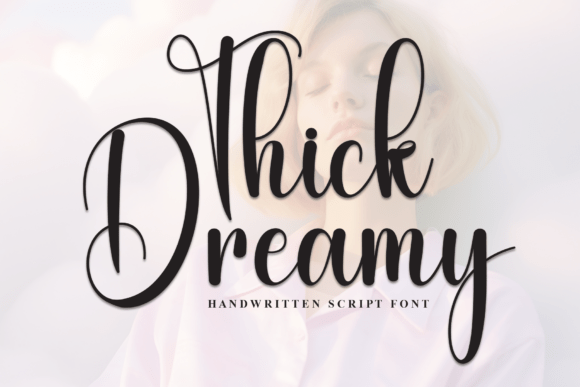
Thick Dreamy Font: Elevate Your Designs with Artistic Flair and Contemporary Elegance
In the world of typography, few fonts manage to strike a balance between artistic expression and modern sophistication. Thick Dreamy, a stylish script font, is one such exceptional find. With its fluid brush strokes, dynamic curves, and expressive letterforms, Thick Dreamy captures the essence of hand-painted calligraphy with a contemporary twist. This versatile font is ideal for a wide range of design applications, including logos, invitations, packaging, and social media graphics.
The Artistic Appeal of Thick Dreamy
Thick Dreamy is more than just a font; it’s an artistic statement. Its fluid brush strokes and dynamic curves give it a natural, hand-painted feel that adds a creative and sophisticated touch to any design. The font’s expressive letterforms are designed to evoke the emotional and personal qualities of hand-written calligraphy, making it perfect for designs that require a personal touch.
The artistic appeal of Thick Dreamy lies in its ability to convey a sense of movement and fluidity. Each letterform is carefully crafted to flow seamlessly into the next, creating a sense of continuity and harmony. This makes it ideal for designs that require a sense of elegance and sophistication, such as luxury brand logos, high-end product packaging, and formal event invitations.
Contemporary Elegance
While Thick Dreamy is rooted in traditional calligraphy, it also boasts a distinctly modern aesthetic. The font’s clean lines, balanced proportions, and refined letterforms give it a contemporary elegance that makes it perfect for modern design applications. Whether you’re designing a logo, social media graphic, or website, Thick Dreamy adds a touch of sophistication and style that elevates your design.
The font’s versatility is also a key aspect of its contemporary appeal. Thick Dreamy can be used in a wide range of design contexts, from formal and professional to informal and creative. Its ability to adapt to different design styles and requirements makes it a valuable asset for designers and brands looking to establish a strong visual identity.
Design Applications for Thick Dreamy
Thick Dreamy’s versatility makes it suitable for a wide range of design applications. Here are some of the most popular uses for this stylish script font:
- Logos: Thick Dreamy is ideal for logos that require a touch of elegance and sophistication. Its fluid brush strokes and dynamic curves make it perfect for luxury brand logos, creative agency logos, and personal branding.
- Invitations: The font’s formal, yet creative feel makes it perfect for formal event invitations, such as weddings, galas, and corporate events.
- Packaging: Thick Dreamy’s artistic flair and contemporary elegance make it suitable for high-end product packaging, food labels, and cosmetics packaging.
- Social Media Graphics: The font’s versatility and style make it perfect for social media graphics, including Instagram posts, Facebook graphics, and Twitter headers.
The Benefits of Using Thick Dreamy
Thick Dreamy offers a range of benefits for designers and brands looking to elevate their designs. Here are some of the key advantages of using this stylish script font:
- Visual Impact: Thick Dreamy’s fluid brush strokes and dynamic curves create a strong visual impact that grabs attention and adds a creative touch to any design.
- Versatility: The font’s versatility makes it suitable for a wide range of design applications, from formal and professional to informal and creative.
- Elegance and Sophistication: Thick Dreamy’s contemporary elegance and artistic flair make it perfect for designs that require a touch of sophistication and style.
- Emotional Connection: The font’s expressive letterforms and natural flow create an emotional connection with the viewer, making it perfect for designs that require a personal touch.
Tips for Using Thick Dreamy Effectively
To get the most out of Thick Dreamy, here are some tips for using the font effectively:
- Use it sparingly: Thick Dreamy’s bold, expressive letterforms make it perfect for headlines and titles. Use it sparingly to create a strong visual impact.
- Pair it with contrasting fonts: Pair Thick Dreamy with contrasting fonts to create visual interest and add depth to your design.
- Experiment with colors: Thick Dreamy’s artistic flair and contemporary elegance make it perfect for a wide range of colors. Experiment with different colors to find the perfect match for your design.
- Pay attention to spacing: Thick Dreamy’s fluid brush strokes and dynamic curves require careful attention to spacing. Make sure to leave enough space between letters to create a clean, elegant look.
Thick Dreamy is a stylish script font that offers a unique combination of artistic flair and contemporary elegance. Its fluid brush strokes, dynamic curves, and expressive letterforms make it perfect for a wide range of design applications, from logos and invitations to packaging and social media graphics. With its natural flow and vibrant character, Thick Dreamy delivers both visual impact and versatility, making it a valuable asset for designers and brands looking to elevate their designs.